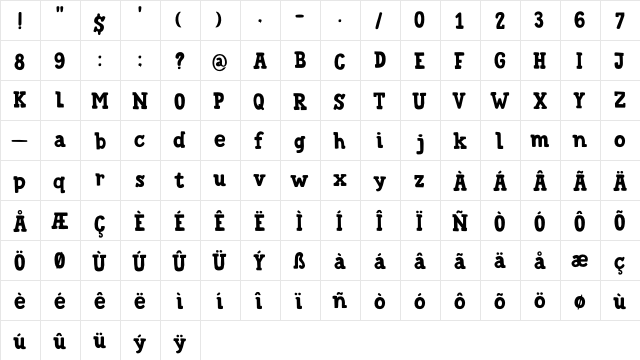
DK Trained Monkey Regular
| Foundry | David Kerkhoff |
| Designer | David Kerkhoff |
Design Context for DK Trained Monkey Typeface
DK Trained Monkey is a composed and adaptable typeface that performs quietly and consistently across a wide range of design contexts.